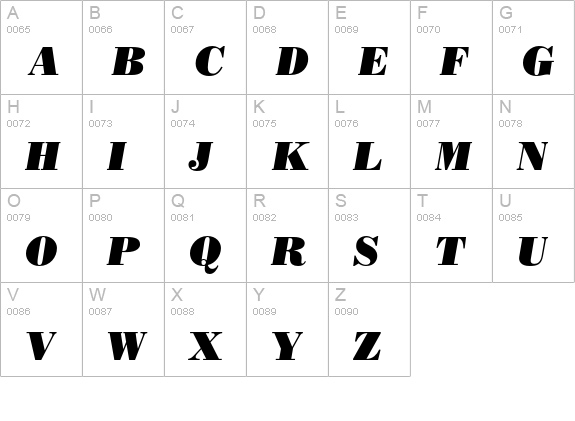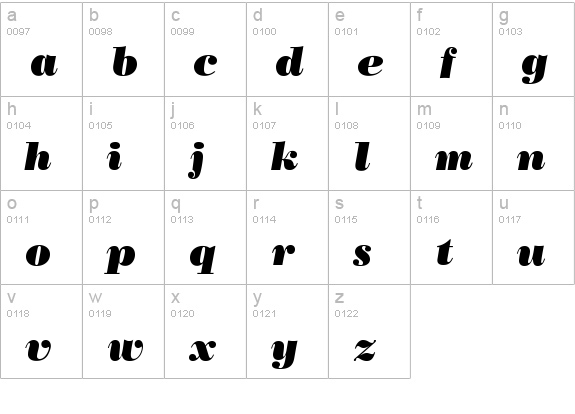
Bodoni Poster Italic Font Details
Bodoni Poster Italic is a distinctive, italic variant in the Bodoni typeface family \xE2\x80\x94 well suited to design and typography projects.
Bodoni Poster Italic font is a stylish and elegant typeface that exudes sophistication and charm. Its graceful italicized strokes add a touch of flair to any design, making it perfect for creating eye-catching headlines, posters, and invitations. The sleek and modern look of Bodoni Poster Italic font makes it a versatile choice for both print and digital projects, adding a touch of class to any layout. What's even better is that Bodoni Poster Italic font is available for free download at FontsMarket.com. This means that you can easily access this high-quality typeface without any cost, making it a fantastic option for designers looking to elevate their work without breaking the bank. Don't miss out on the opportunity to enhance your designs with the timeless elegance of Bodoni Poster Italic font - download it for free today!